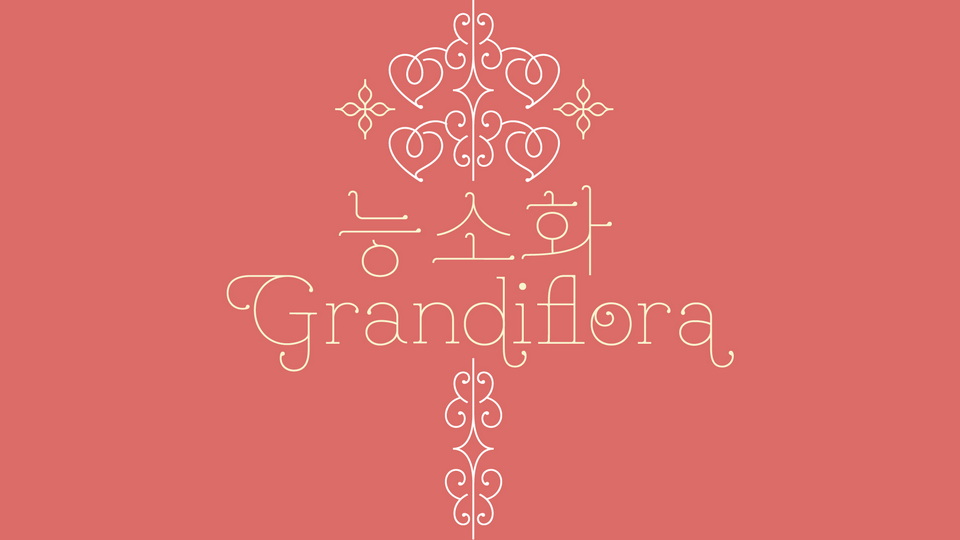
Download Grandiflora font, a decorative Hangeul typeface inspired by the Art Nouveau style of the 20th century. Grandiflora font is presented exclusively in hairline weight to highlight the elegant curves and ornamental characteristics of Hangeul.